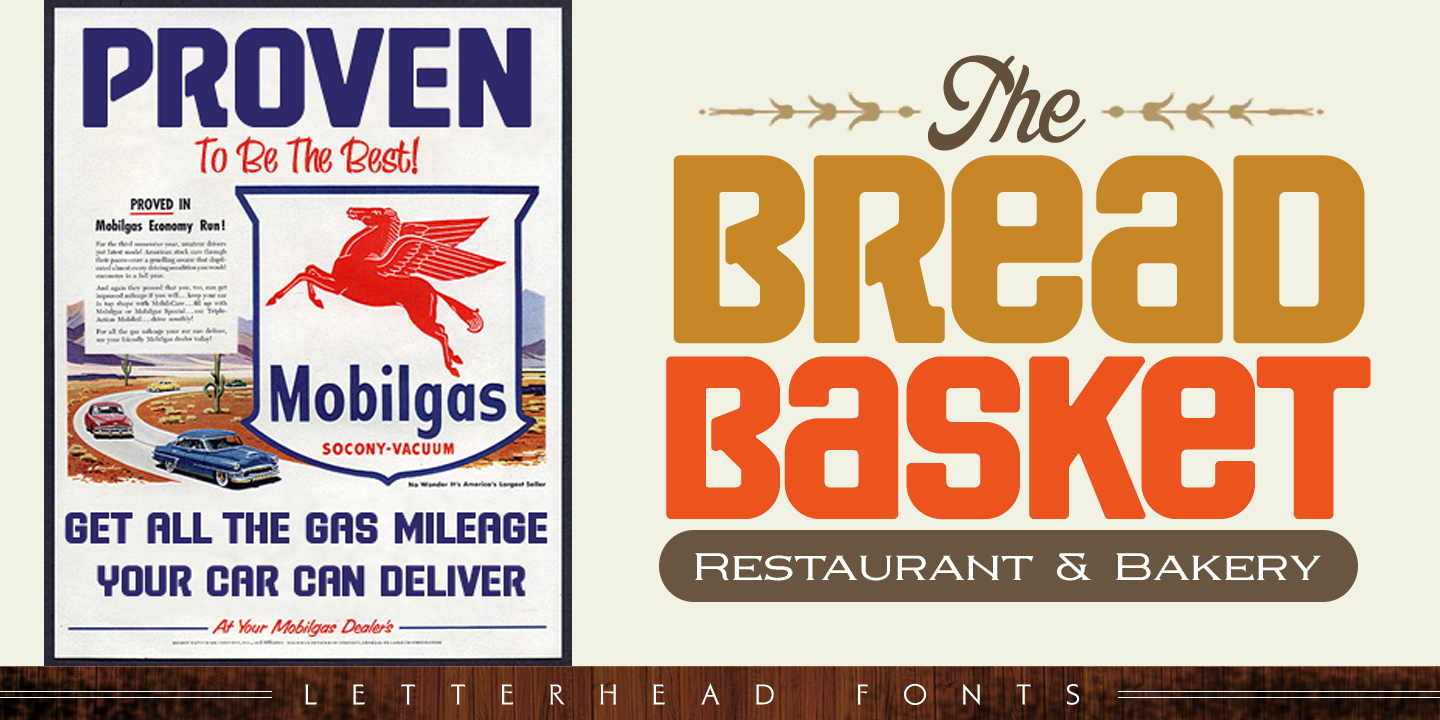
LHF Advertisers Square Font is perfect for advertising agencies, marketing design studios, bold poster campaigns, promotional material designers, vintage advertisement collections, retro brand revivals, and impactful commercial signage projects. This commanding typeface embodies classic advertising power and geometric precision, bringing vintage promotional authority and modern marketing impact to any design project celebrating commercial communication and advertising heritage.
What makes LHF Advertisers Square Font exciting is its powerful combination of advertising tradition and geometric modernity that perfectly captures the essence of effective commercial communication and promotional design excellence. The font features bold square letterforms with advertising-inspired proportions and marketing precision that evoke both classic billboard advertising and contemporary promotional materials. Its commanding character demands attention while maintaining excellent readability for both large-scale advertising and detailed marketing applications.
The LHF Advertisers Square Font family includes multiple weights with complementary condensed variations and advertising ornamental elements. The character set features promotional ligatures, marketing symbols, commercial alternates, and advertising decorative accents that enhance the font's professional appeal. Advanced OpenType features provide creative flexibility for international advertising agencies and multilingual marketing campaign applications.
Whether you're designing advertising agency brands, creating promotional campaign materials, or developing commercial marketing content, LHF Advertisers Square Font Free Download provides exceptional impact and versatility. This dynamic typeface transforms ordinary text into powerful advertising experiences that capture commercial attention while establishing memorable brand recognition in competitive advertising and marketing industry marketplaces.